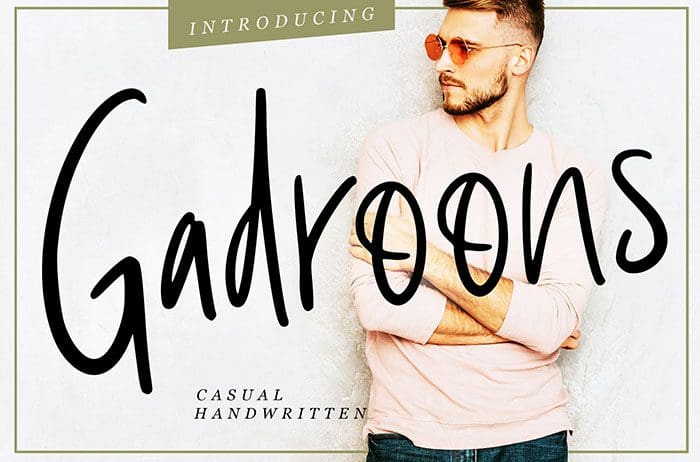
Gadroons Handwritten Font
Gadroons is casual Handwritten Font with sans-serif style will perfect for your latest project. Gadroons is perfect for branding projects, logo, wedding designs, and more. Thanks to Creatype Studio for sharing this font! Take a look at this portfolio for more of his stunning fonts.